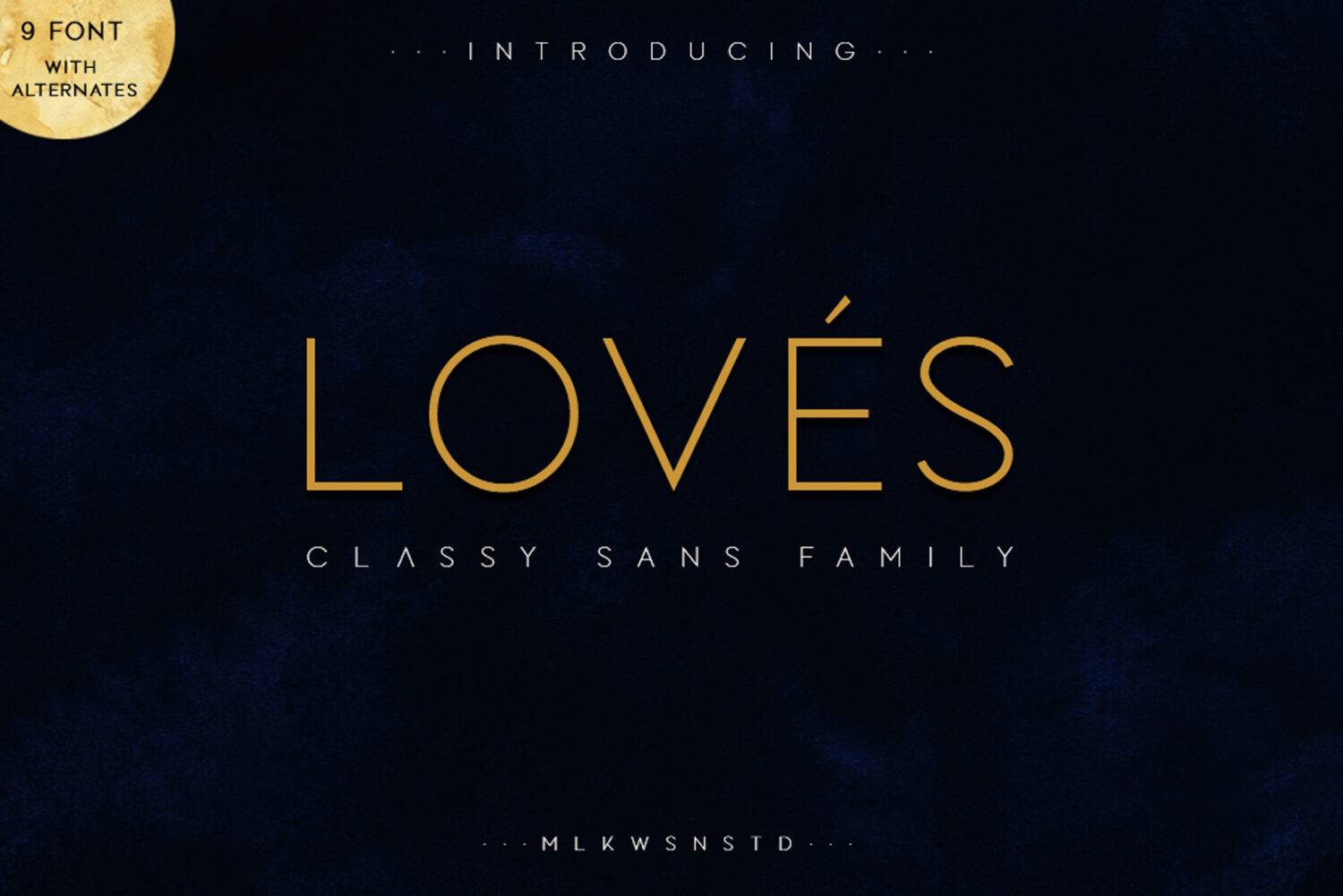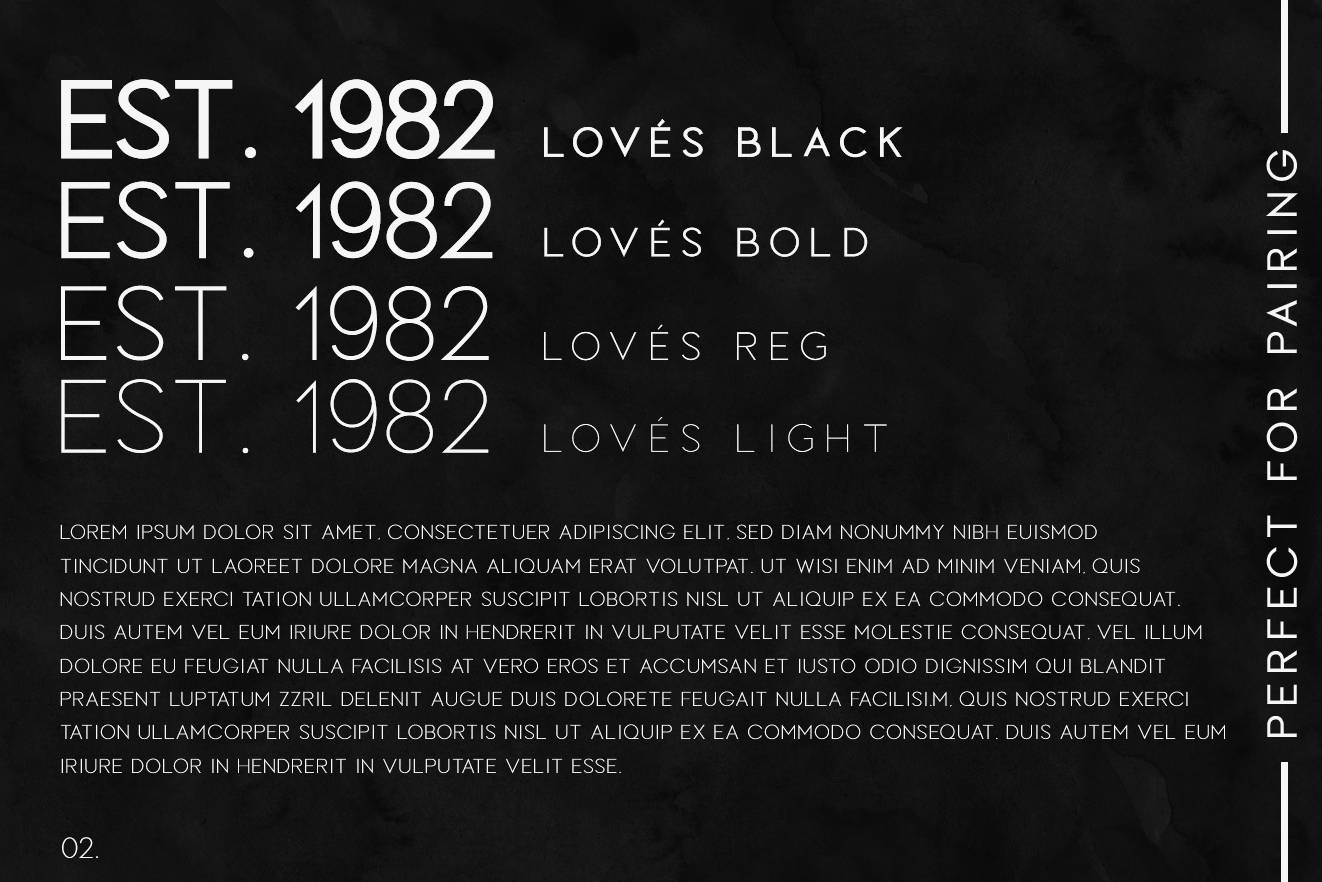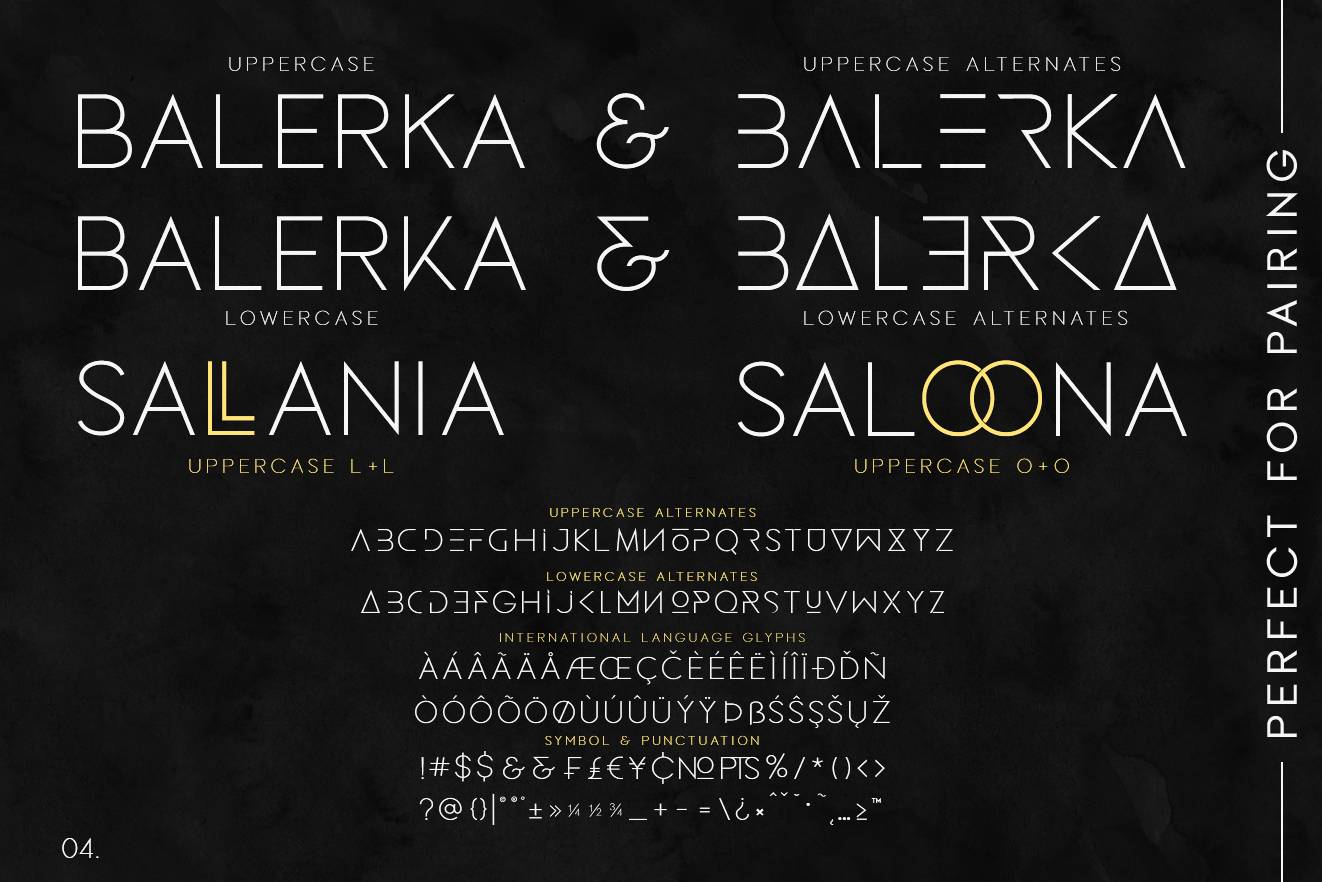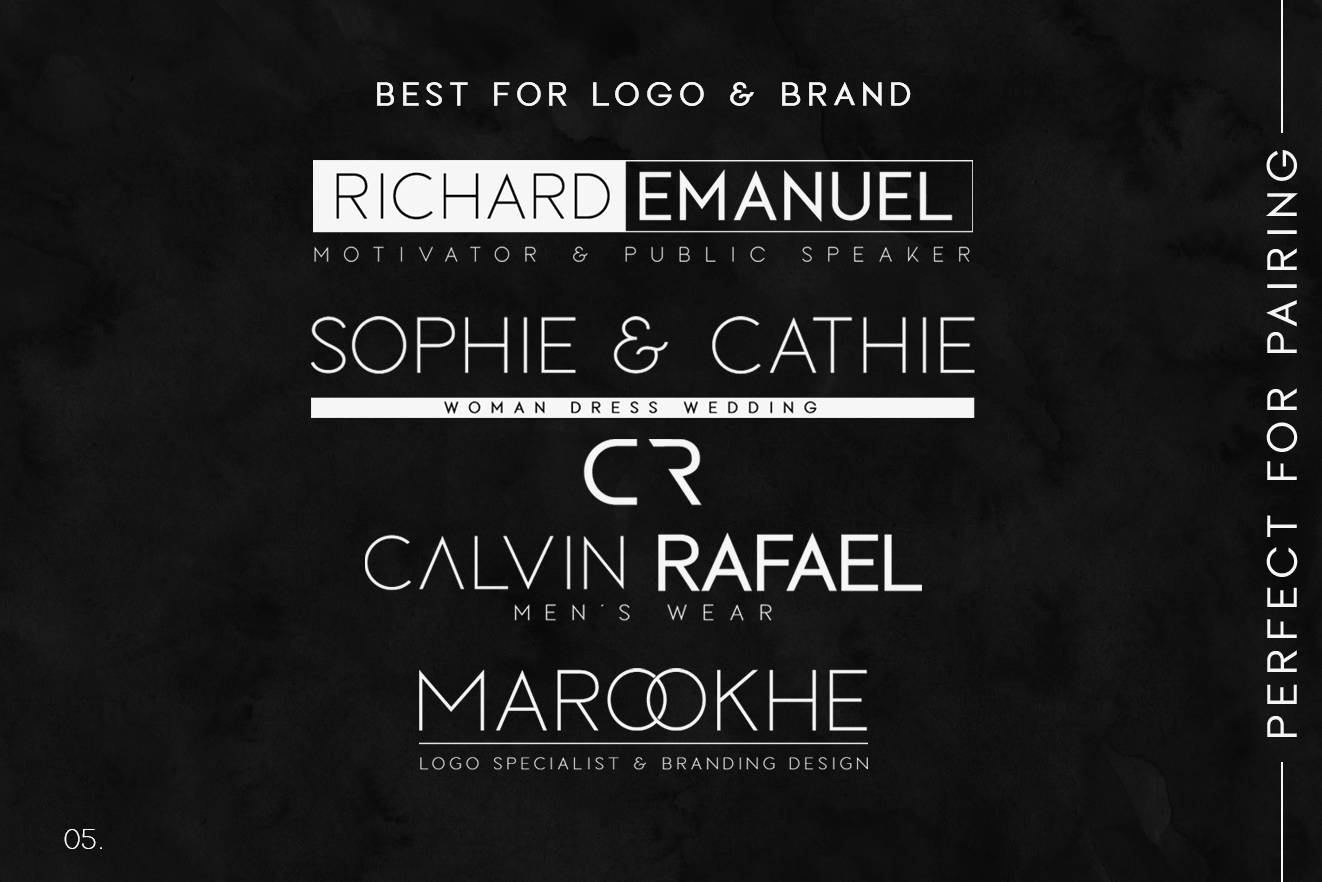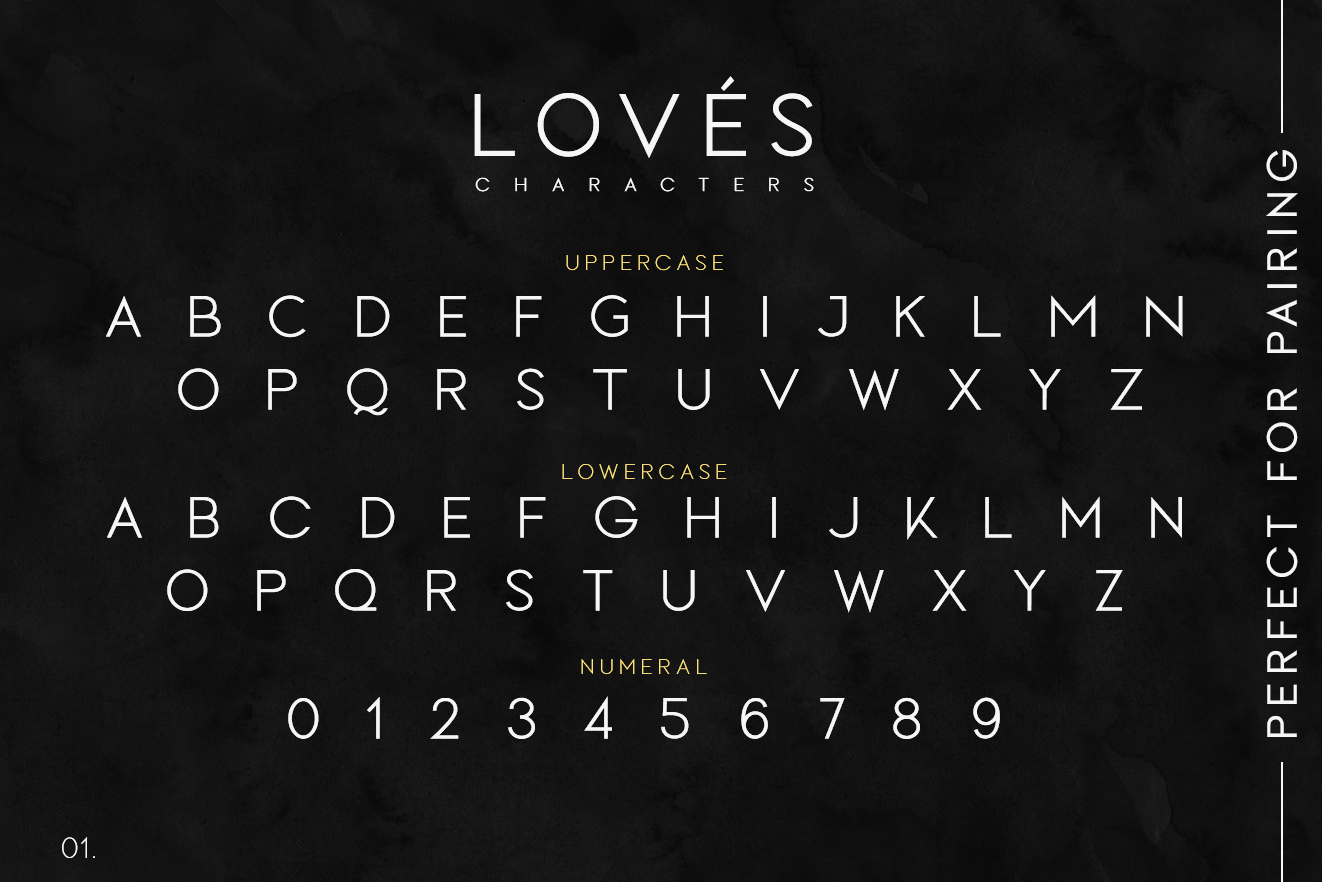
Loves Font is a sleek and modern sans serif typeface characterized by its thin, delicate strokes and clean geometric shapes, giving it a minimalist and elegant feel. Its tall x-height and open letterforms make it highly legible while conveying a refined and contemporary style perfect for fashion branding, editorial headlines, and sophisticated digital interfaces. This font works well where a light, airy, and stylish aesthetic is desired, adding a touch of modern luxury without overwhelming the design.
Loves Font
About Loves Font